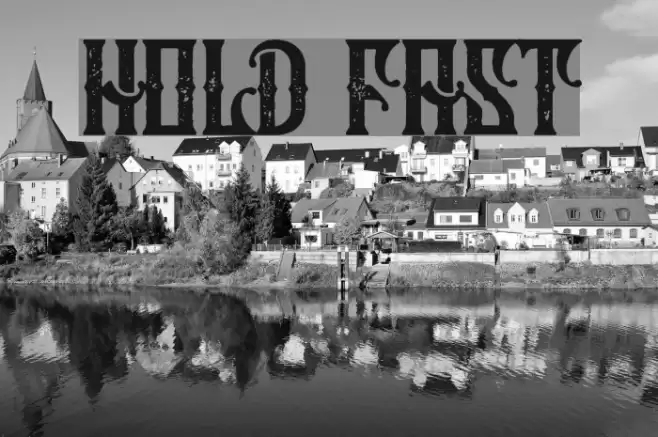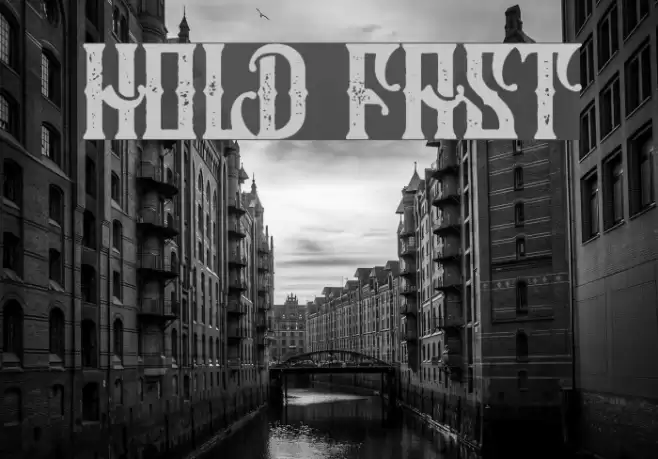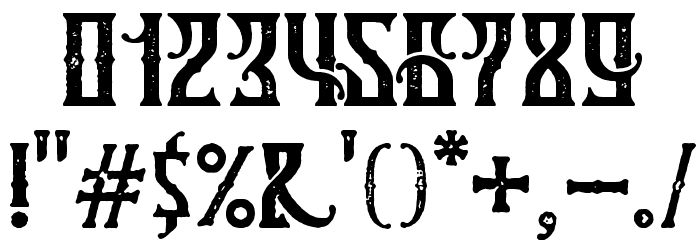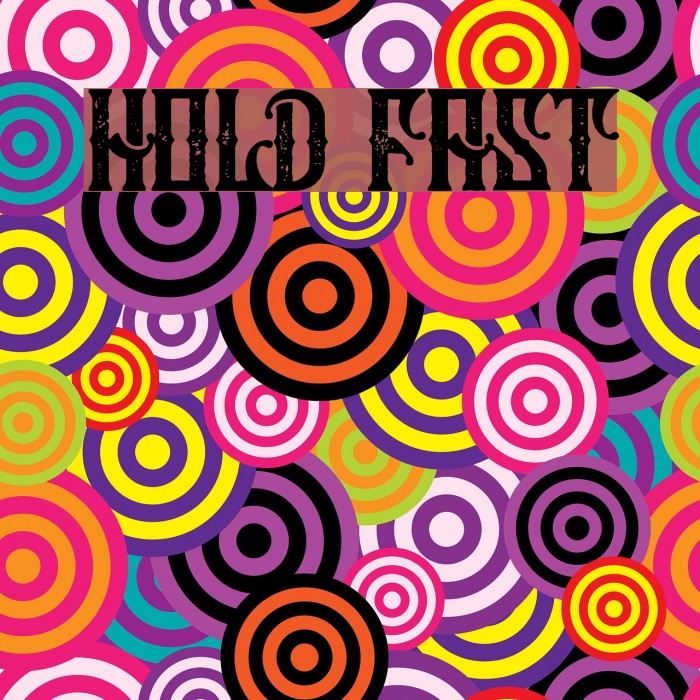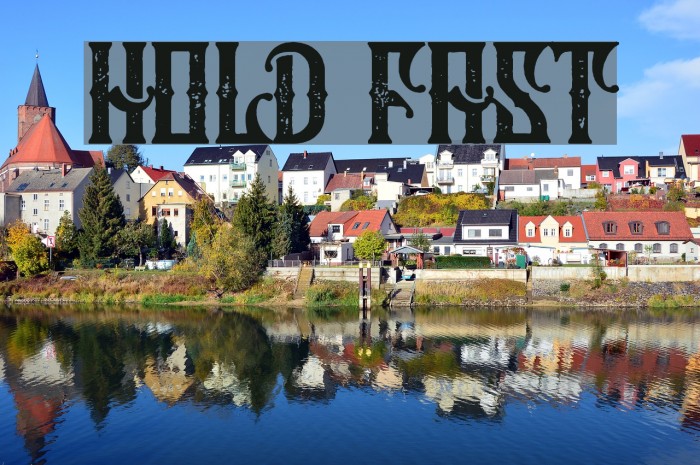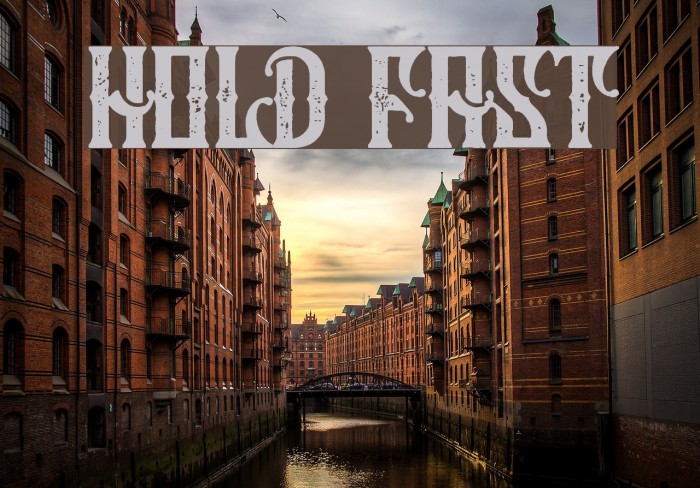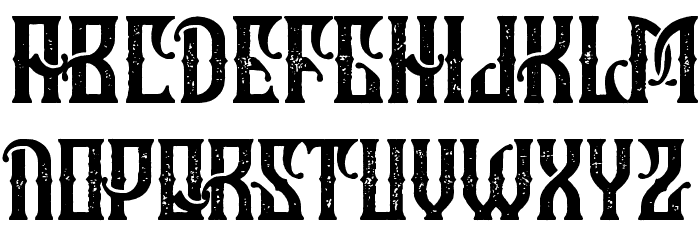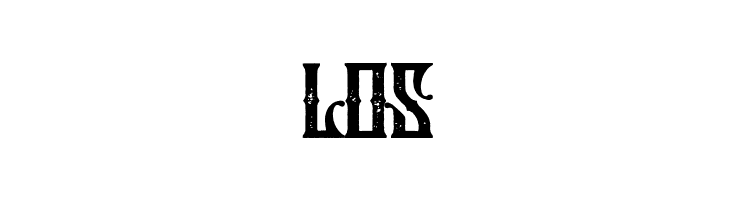
Hold Fast Font
Hold Fast Description
This font features a bold, distressed style with a vintage, rugged appearance. The characters are designed with a decorative flair, incorporating unique cutouts and rough textures that give it an aged, weathered look. The uppercase letters are particularly striking, with intricate detailing that adds to the font's overall impact. The numbers and special characters maintain this distressed aesthetic, making the font suitable for projects that require a strong, eye-catching design. The font's boldness and decorative elements make it ideal for creating a dramatic visual statement.
A bold, distressed font with a vintage, decorative style from Uncategorized fonts.
- Proposed Projects: Ideal for posters, logos, branding, and any design requiring a vintage or rugged aesthetic.
- Overall Style: Vintage, Decorative